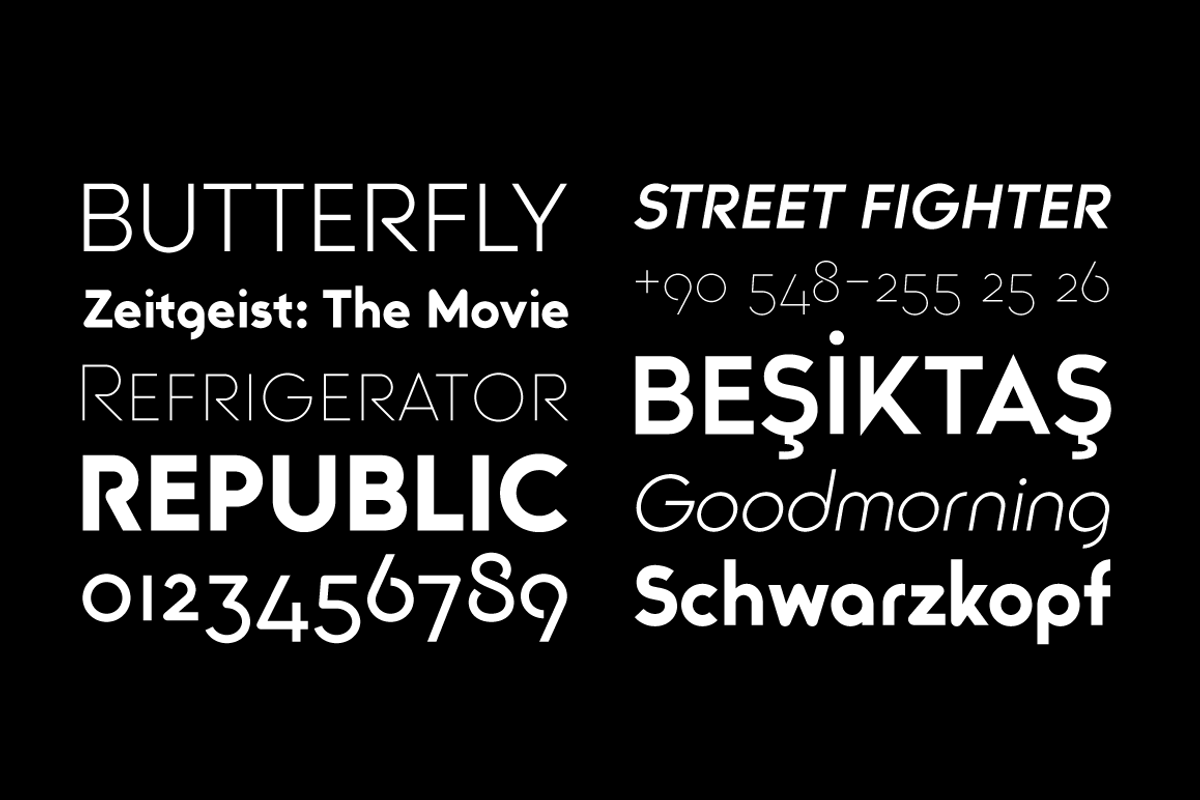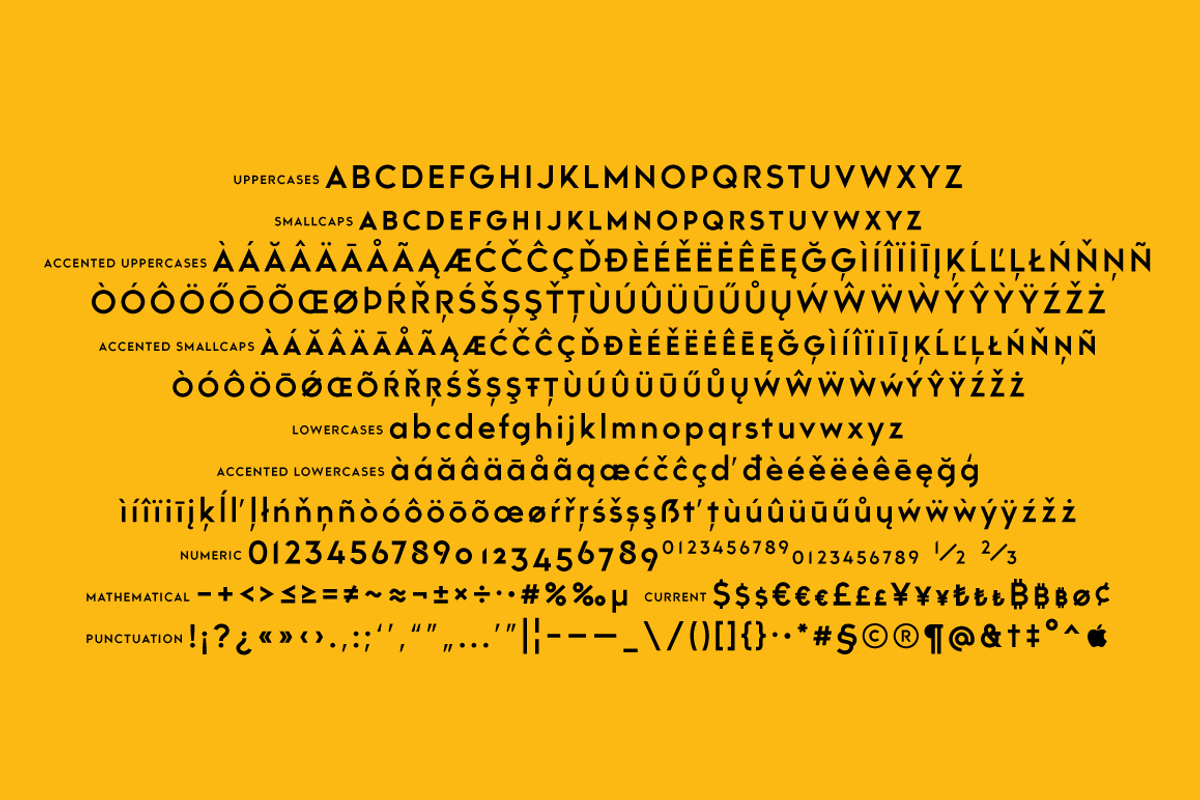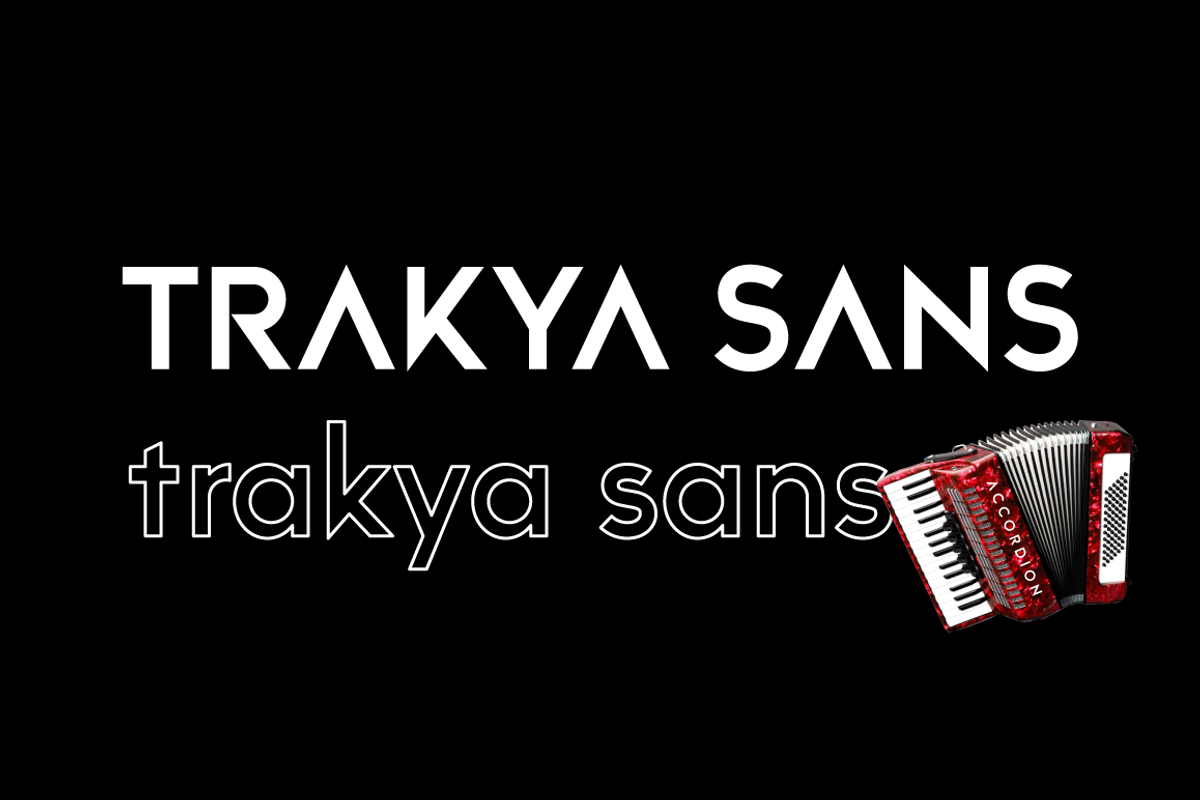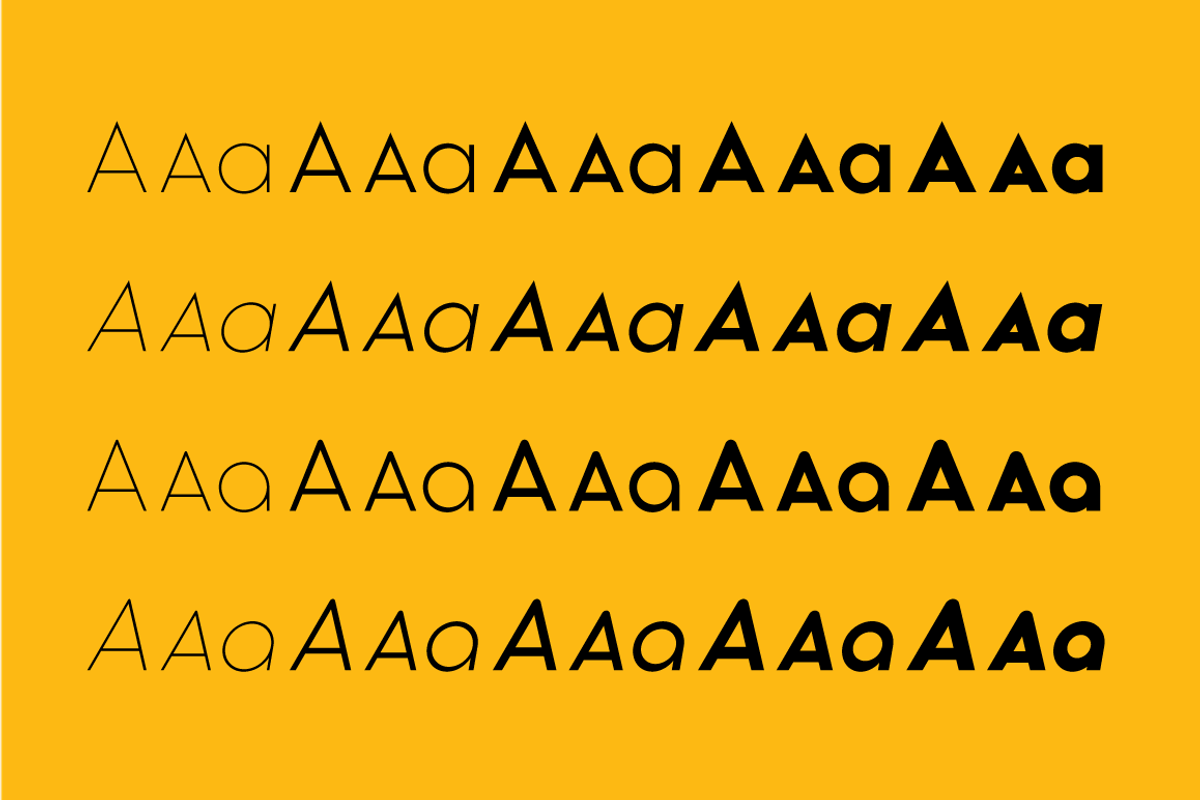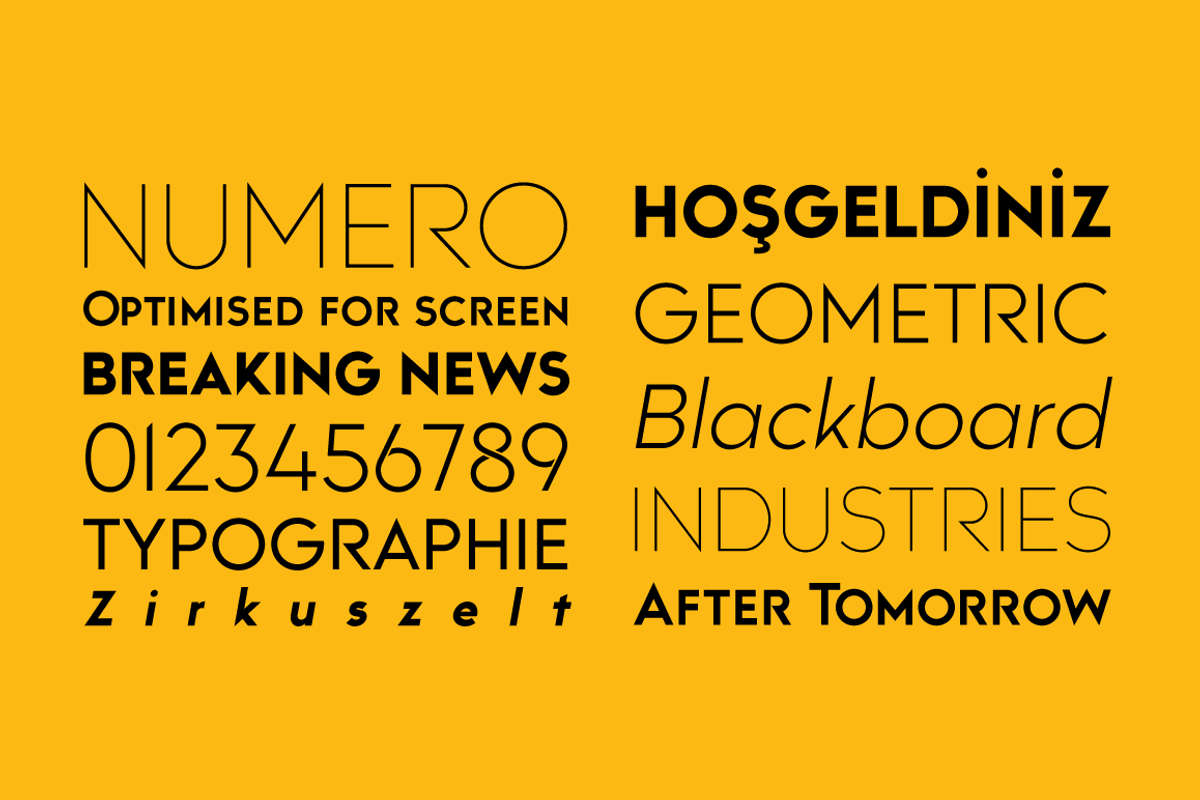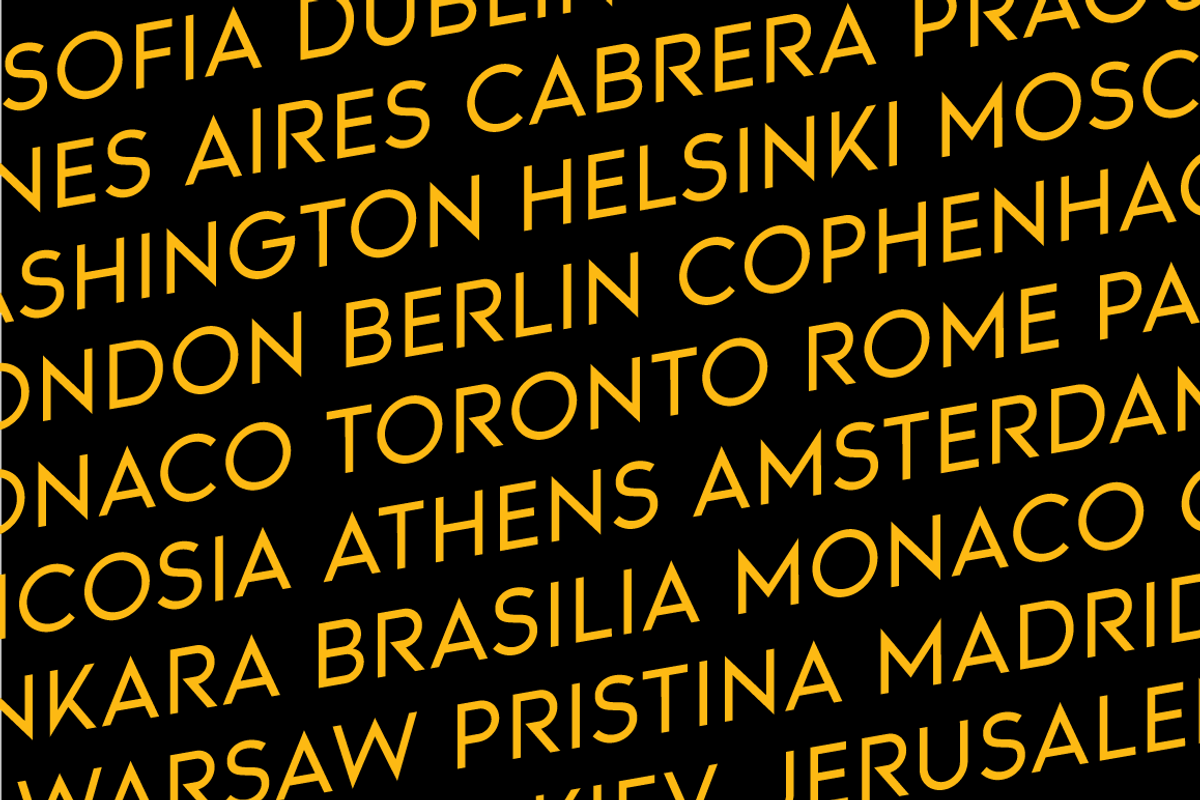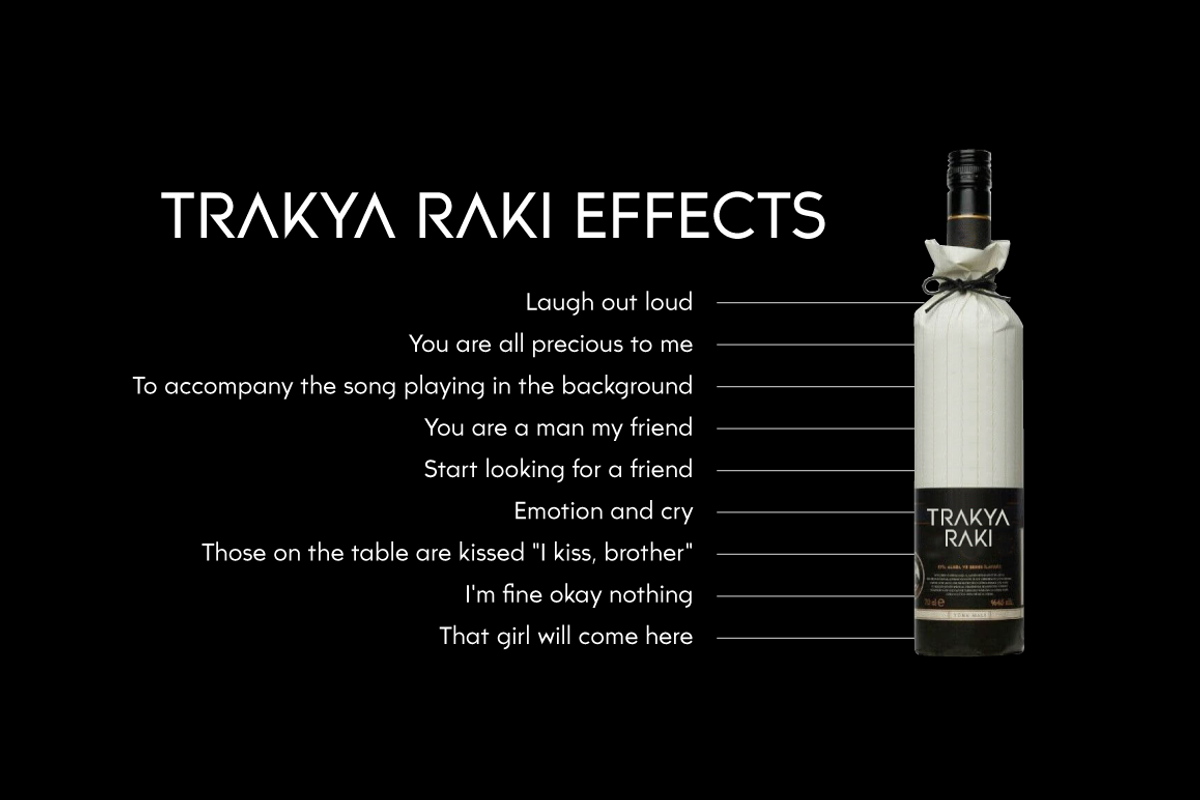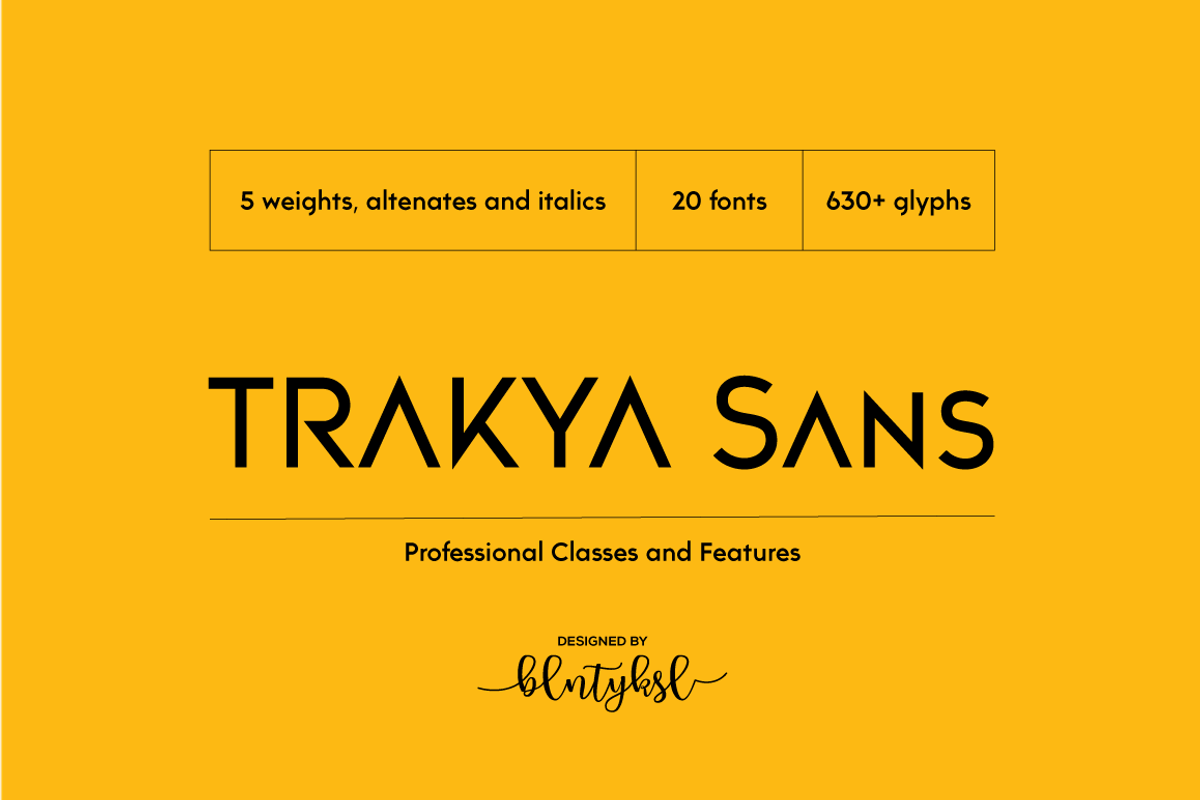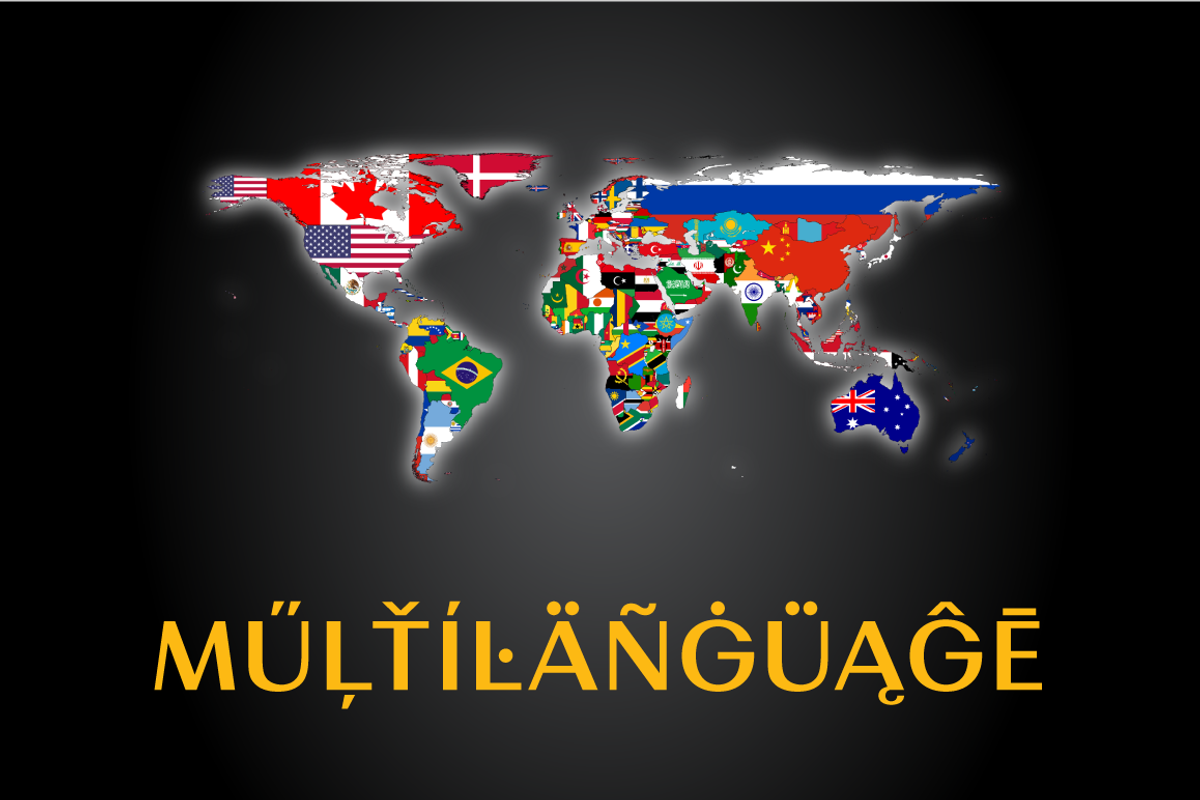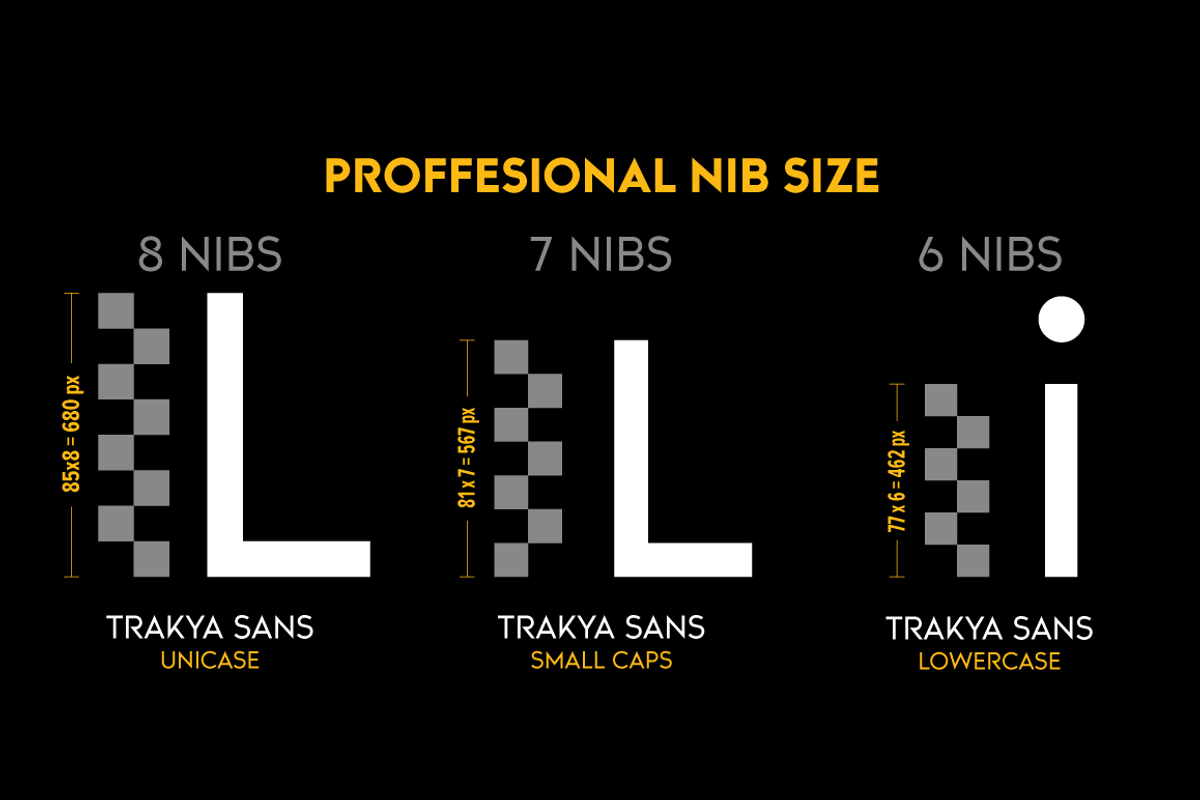
Trakya Sans
Thrace (/θreɪs/; Greek: Θράκη, Thráki; Bulgarian: Тракия, Trakiya; Turkish: Trakya) is a geographical and historical region in Southeast Europe, now split among Bulgaria, Greece, and Turkey, which is bounded by the Balkan Mountains to the north, the Aegean Sea to the south, and the Black Sea to the east. It comprises southeastern Bulgaria (Northern Thrace), northeastern Greece (Western Thrace), and the European part of Turkey (East Thrace).
Trakya Sans is a modern sans serif with a geometric touch. Futura, Avant Garde and the like. It has a modern streak which is the result of a harmonization of width and height especially in the lowercase letters to support legibility.
Ideally suited for advertising and packaging, editorial and publishing, logos, branding and creative industries, posters and billboards, small text, way-finding and signage as well as web and screen design.
Trakya Sans provides advanced typographical support for Latin-based languages. An extended character set, supporting Central, Western and Eastern European languages, rounds up the family.
The designation “Trakya Sans 500 Regular” forms the central point. The first figure of the number describes the stroke thickness: 100 Thin to 900 Bold. "Trakya Sans" comes in 5 weights with matching italics plus "Trakya Sans Alt", also 5 weights and italics so a total of 20 styles. The family contains a set of 630+ characters.
Case-Sensitive Forms, Classes and Features, Small Caps from Letter Cases, Fractions, Superior, Inferior, Denominator, Numerator, Old Style Figures just with one easy touch in all graphic programs.
Trakya Sans is the perfect font for web use.